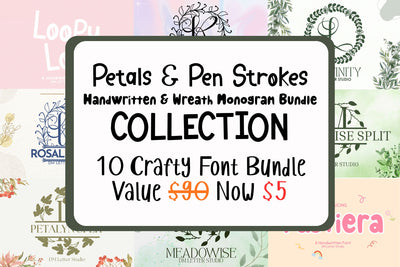
Petals & Pen Strokes – Handwritten + Wreath Monogram Bundle
Petals & Pen Strokes brings together two design essentials: warm handwritten scripts for names and headlines, and elegant wreath monograms for initials, dates, and small taglines. Use the scripts to set the tone of your brand or event, then add a wreath or its split version to anchor the layout with a refined emblem. The pairing feels personal and polished, whether you’re building wedding suites, boutique packaging, social posts, or giftable keepsakes.
Inside you’ll find two friendly scripts—Pastiera and Loopy Lop—chosen for clear letterforms and natural pen rhythm. They read well at display sizes for invitations, menus, thank-you cards, labels, and quotes. To complete the system, you get four coordinated wreath families, each with a classic and a split version: Leafinity, Meadowise, Petalyn, and Rosalia Wreath. The split variants include a clean center panel so you can type names, dates, or short phrases directly, without extra shape building.
If you need a compact toolkit that covers both the heartfelt headline and the elegant emblem, Petals & Pen Strokes gives you everything in one place—ready to personalize, pair, and publish.
Handwritten Fonts
Pastiera
Loopy Lop
Wreath & Split Monograms
Leafinity
Leafinity Split
Meadowise
Meadowise Split
Petalyn
Petalyn Split
Rosalia Wreath
Rosalia Wreath Split
Monograms: A–Z initials with coordinated wreath frames
Split versions: Clean center panel for editable names or dates
Highlights
Natural pen strokes with clear, legible forms
Coordinated wreath styles for a cohesive look
Split options to place names without extra layout work
Choose Pastiera or Loopy Lop for your headline or name.
Pick a wreath that matches the mood: Rosalia for classic romance, Leafinity for fresh greenery, Meadowise for airy countryside, Petalyn for delicate florals.
Need a nameplate? Use the Split version and type inside the panel.
Keep spacing generous. Set the script larger and the wreath slightly smaller for balance.